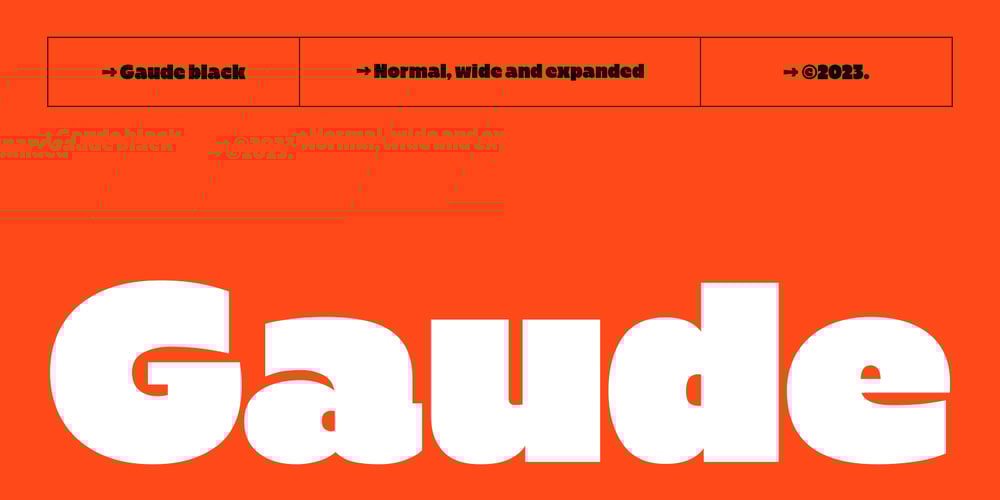
Gaude Font Family was designed by Bagas Ardiatma and published by Trustha. Gaude contains 6 styles and family package options. Gaude is a sans-serif typeface. Crafted with care, maximizing neatness in shape. With thickness balancing with negative space. Making it fitting when strung together into words, or sentences. Added with alternative glyphs, to make it more alive.Gaude comes with 3 widths, namely: normal, wide, and expanded. And also a soft version, making it 6 styles. Gaude is perfect for branding, titling, headline, and more.